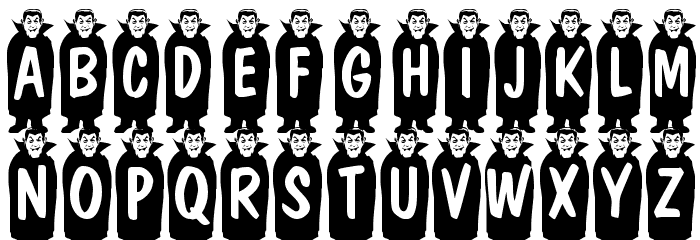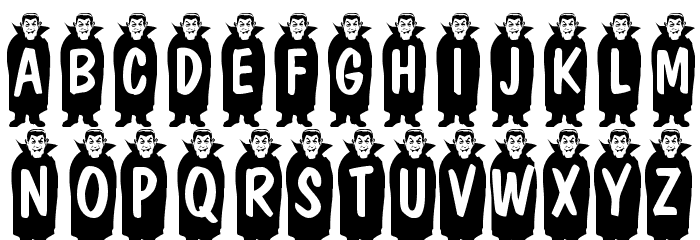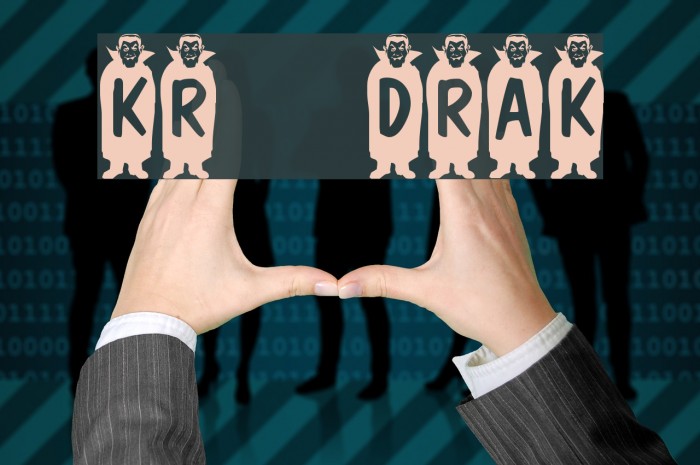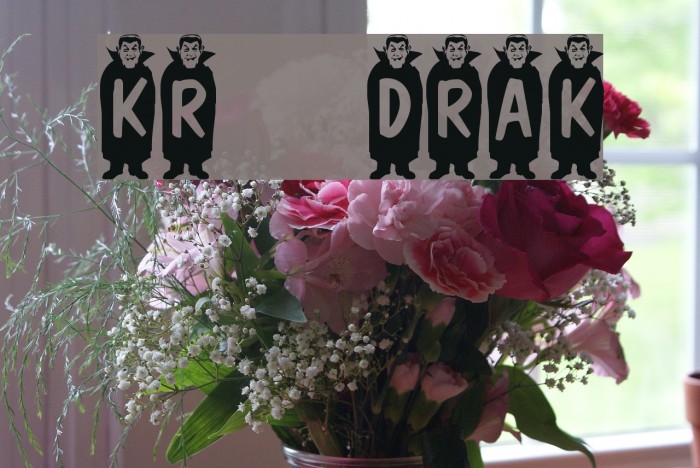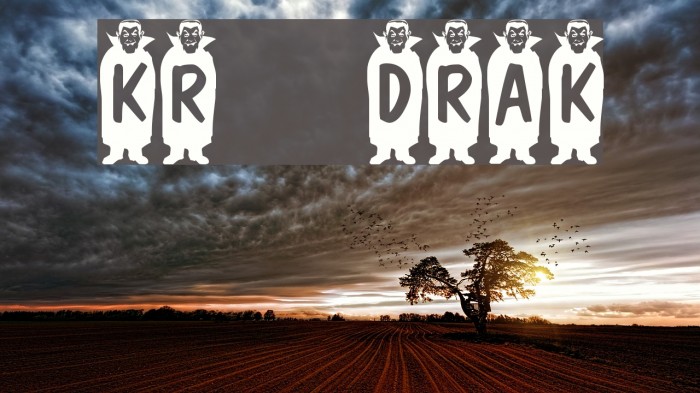
KR Drak Font
This playful and whimsical font features each letter encapsulated within a cartoonish vampire character, creating a unique and eye-catching design. The letters are bold and rounded, with a consistent thickness that makes them easily legible despite the decorative elements. The vampire figures add a fun, thematic touch, making this font ideal for Halloween or horror-themed projects. The overall style is both humorous and engaging, with a modern twist on traditional decorative fonts. The characters are evenly spaced, ensuring readability while maintaining the playful aesthetic.
A whimsical font with letters inside cartoon vampire figures, perfect for themed designs.
- Proposed Projects: Ideal for Halloween invitations, themed party decorations, children's book titles, or playful branding.